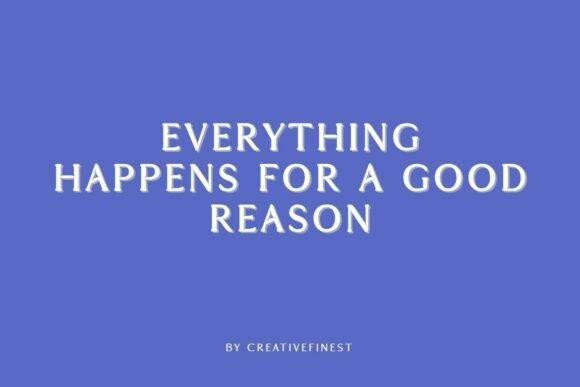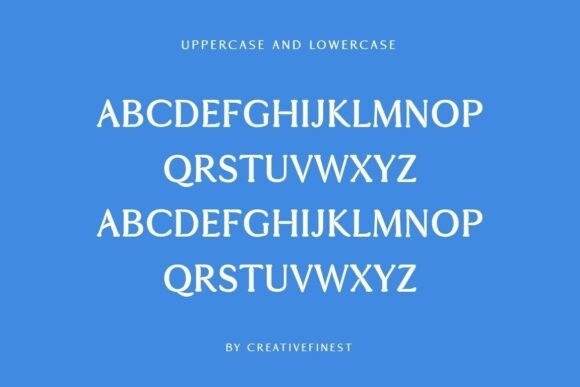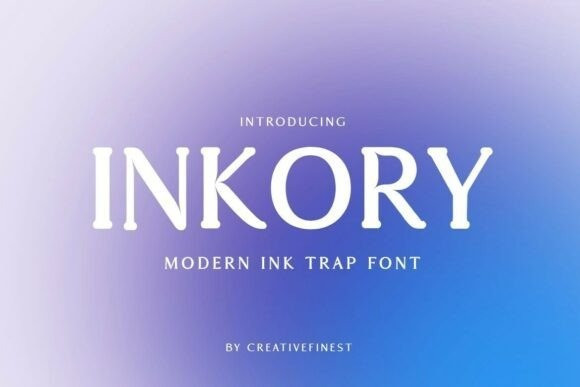
Inkory Font
Inkory Font is a refined typographic masterpiece that reimagines modern elegance through the lens of innovative ink trap design. With its streamlined forms, soft contours, and intelligent construction, Inkory delivers a fresh visual identity that transcends traditional typefaces. Every stroke is purposefully crafted to enhance clarity, cleanliness, and exceptional readability.
Highly versatile and visually compelling, Inkory effortlessly adapts to a wide range of creative applications. Whether used for bold branding, attention-grabbing posters, sophisticated logos, inspiring quotes, elegant book titles, or stylish packaging, this font makes a powerful impression. Its clean, contemporary presence also enhances digital environments—bringing websites and online content to life with character and charm.
Balancing simplicity with distinct personality, Inkory harmonizes beautifully with both modern and classic aesthetics. It breathes new life into every design it touches, offering clarity without compromising on style. More than just a typeface, Inkory is a seamless fusion of form and function—a design tool that speaks with confidence, creativity, and finesse.